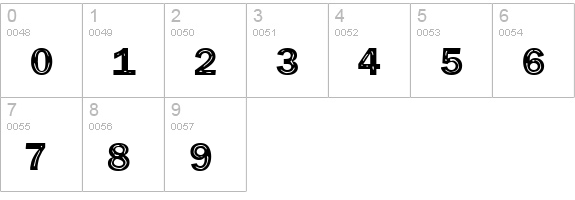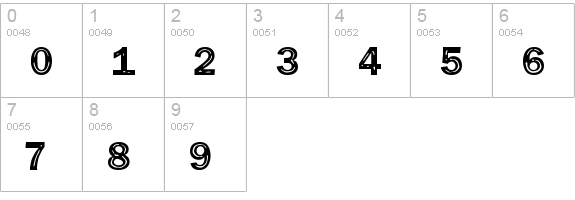
Funky33-Bold Font Details
Funky33-Bold is a strong, high-contrast variant in the Funky33 typeface family \xE2\x80\x94 well suited to headlines, attention-grabbing titles, and strong calls-to-action.
Funky33-Bold font is a vibrant and playful typeface that radiates energy and personality. Its bold and funky design makes it perfect for eye-catching headlines, posters, and branding projects. With its unique blend of retro and modern elements, this font is sure to make a bold statement in any design. What's even better is that Funky33-Bold is available for free download at FontsMarket.com. This means you can easily add this exciting font to your collection without any cost. Don't miss out on the opportunity to unleash the fun and creativity of Funky33-Bold in your projects today!